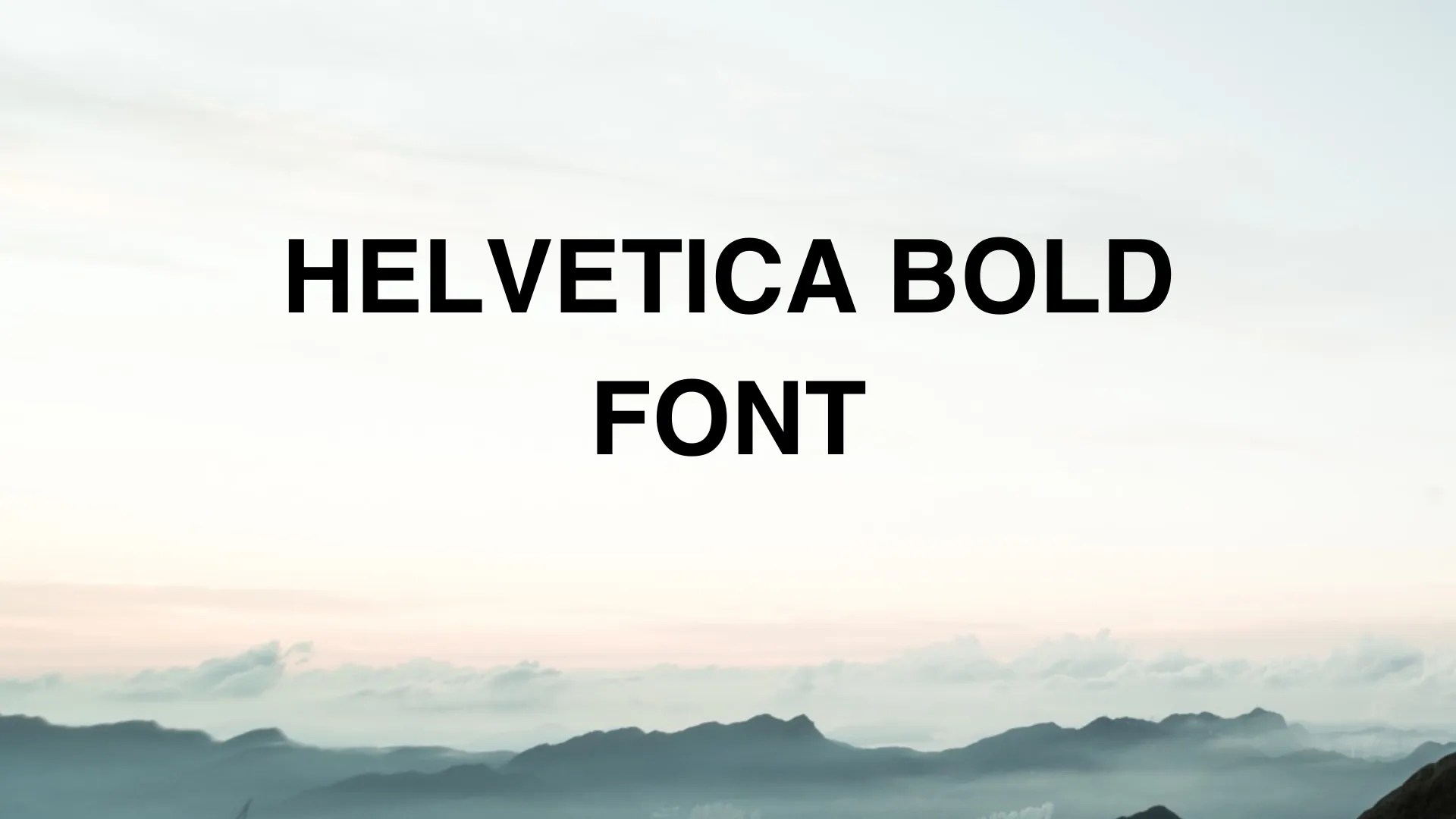
Helvetica Now Display Bold Font Download . Every single glyph of helvetica has been redrawn and redesigned for this expansive new edition which preserves the typeface's swiss mantra of clarity, simplicity and. Every single glyph of helvetica has been redrawn. Helvetica now is offered in micro, text, and display optical sizes, all of the characters are optimised and redrawn; Helvetica now display bold font free download. The font is available in all formats (helvetica now display woff2, helvetica now display woff,. Helvetica now font is a simple, clean font family created by monotype with a modern design and remarkable appearance. Helvetica now display bold font download is. Helvetica now font family is a modern update of the iconic helvetica typeface, designed by monotype and released in 2019. A great choice for highlighting your design elements. Please review any files included with your download, which will usually include information on the usage and licenses of the fonts.
Helvetica font free download • Helvetica Now Display Bold Font Download Every single glyph of helvetica has been redrawn. A great choice for highlighting your design elements. Please review any files included with your download, which will usually include information on the usage and licenses of the fonts. Helvetica now font is a simple, clean font family created by monotype with a modern design and remarkable appearance. Every single glyph of. Helvetica Now Display Bold Font Download.
Download helvetica neue bold font verytru Helvetica Now Display Bold Font Download Helvetica now font family is a modern update of the iconic helvetica typeface, designed by monotype and released in 2019. Every single glyph of helvetica has been redrawn and redesigned for this expansive new edition which preserves the typeface's swiss mantra of clarity, simplicity and. Please review any files included with your download, which will usually include information on the. Helvetica Now Display Bold Font Download.
Helvetica Now For A World That Needs Helvetica Always HOW Design Helvetica Now Display Bold Font Download Every single glyph of helvetica has been redrawn. The font is available in all formats (helvetica now display woff2, helvetica now display woff,. A great choice for highlighting your design elements. Helvetica now font family is a modern update of the iconic helvetica typeface, designed by monotype and released in 2019. Please review any files included with your download, which. Helvetica Now Display Bold Font Download.
Red Dot Design Award Helvetica Now Display Bold Font Download The font is available in all formats (helvetica now display woff2, helvetica now display woff,. Helvetica now display bold font free download. Helvetica now is offered in micro, text, and display optical sizes, all of the characters are optimised and redrawn; A great choice for highlighting your design elements. Please review any files included with your download, which will usually. Helvetica Now Display Bold Font Download.